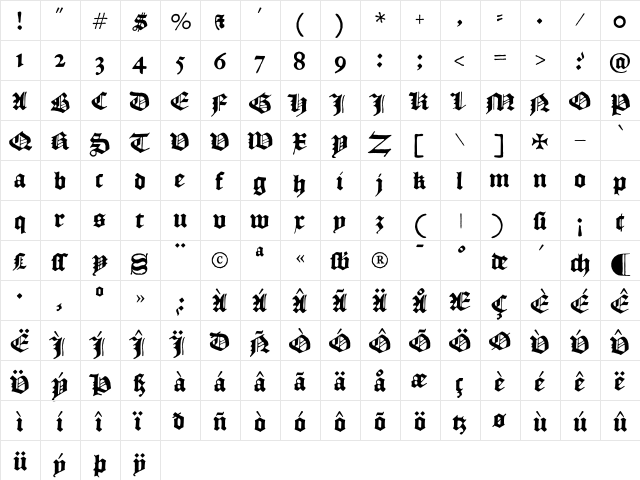
Historical EnglishTextura
Design Context for Historical Typeface
Historical channels the dramatic heritage of Fraktur and Gothic scripts, bringing a sense of historical gravitas to any design.
A natural fit for music packaging, gothic editorial design, and any project that needs historical weight.
Font Pairing: Pair with a clean neutral sans-serif for body copy to let Historical's character lead without overwhelming the composition.
Pro Tip: Reserve Historical for display and logo use — pair it with a clean sans-serif for body copy to prevent the composition from feeling oppressive.